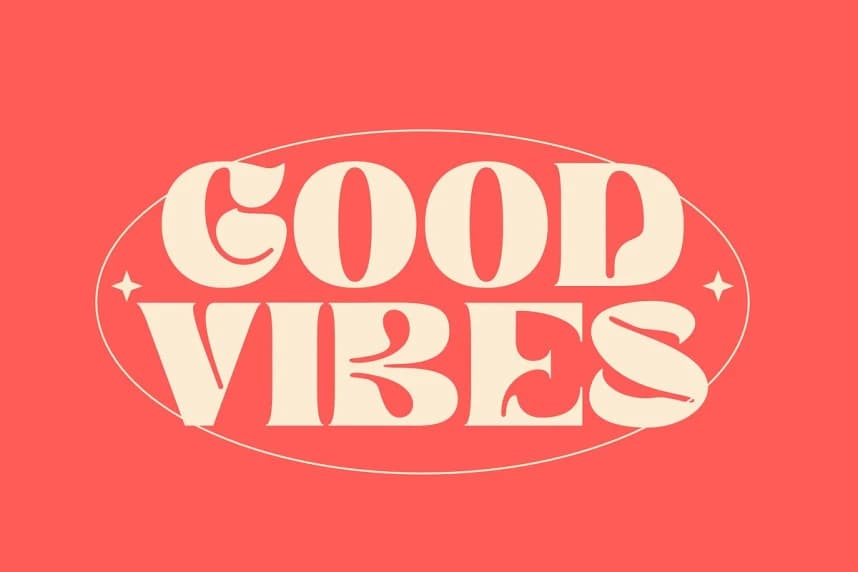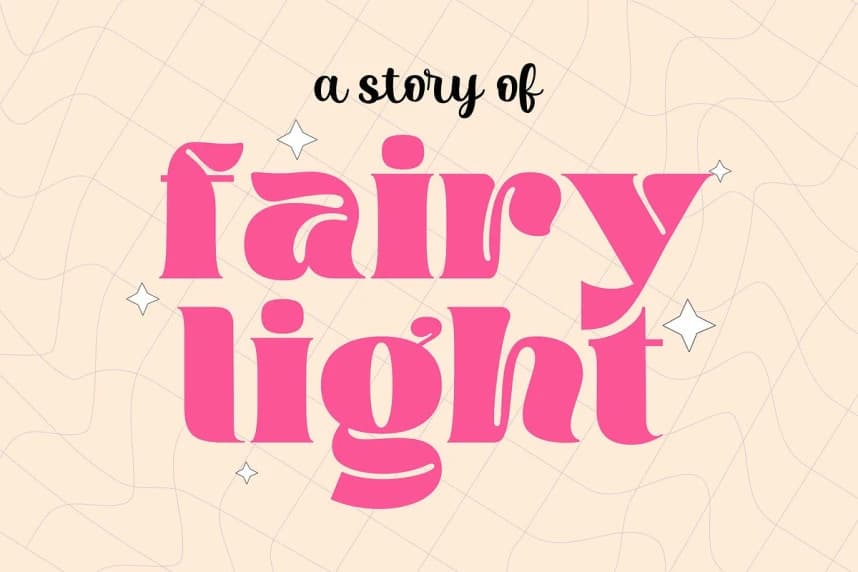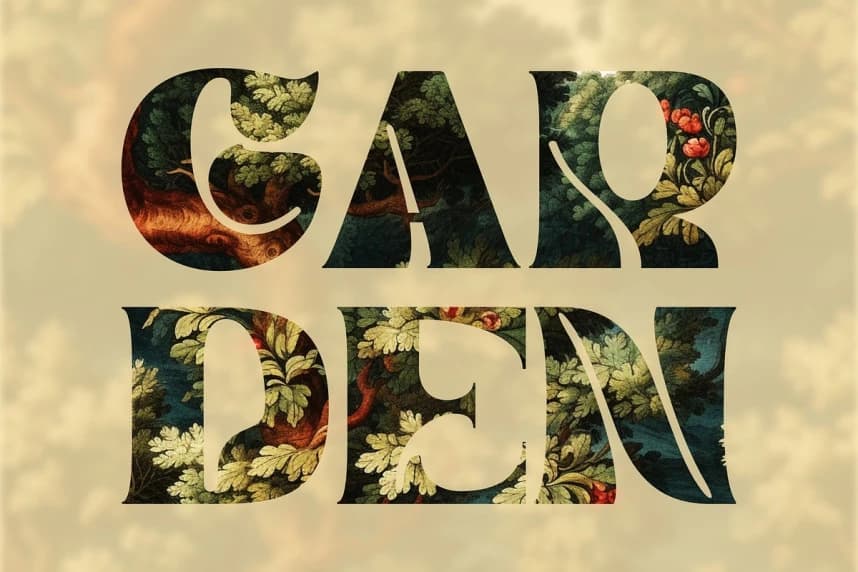
Bangond Font
Bangond Font is a timeless serif font that seamlessly blends elegance with impact. With its slightly bracketed serifs and horizontal stress, Bangond exudes sophistication. Its open counters and moderate contrast between thick and thin strokes ensure readability